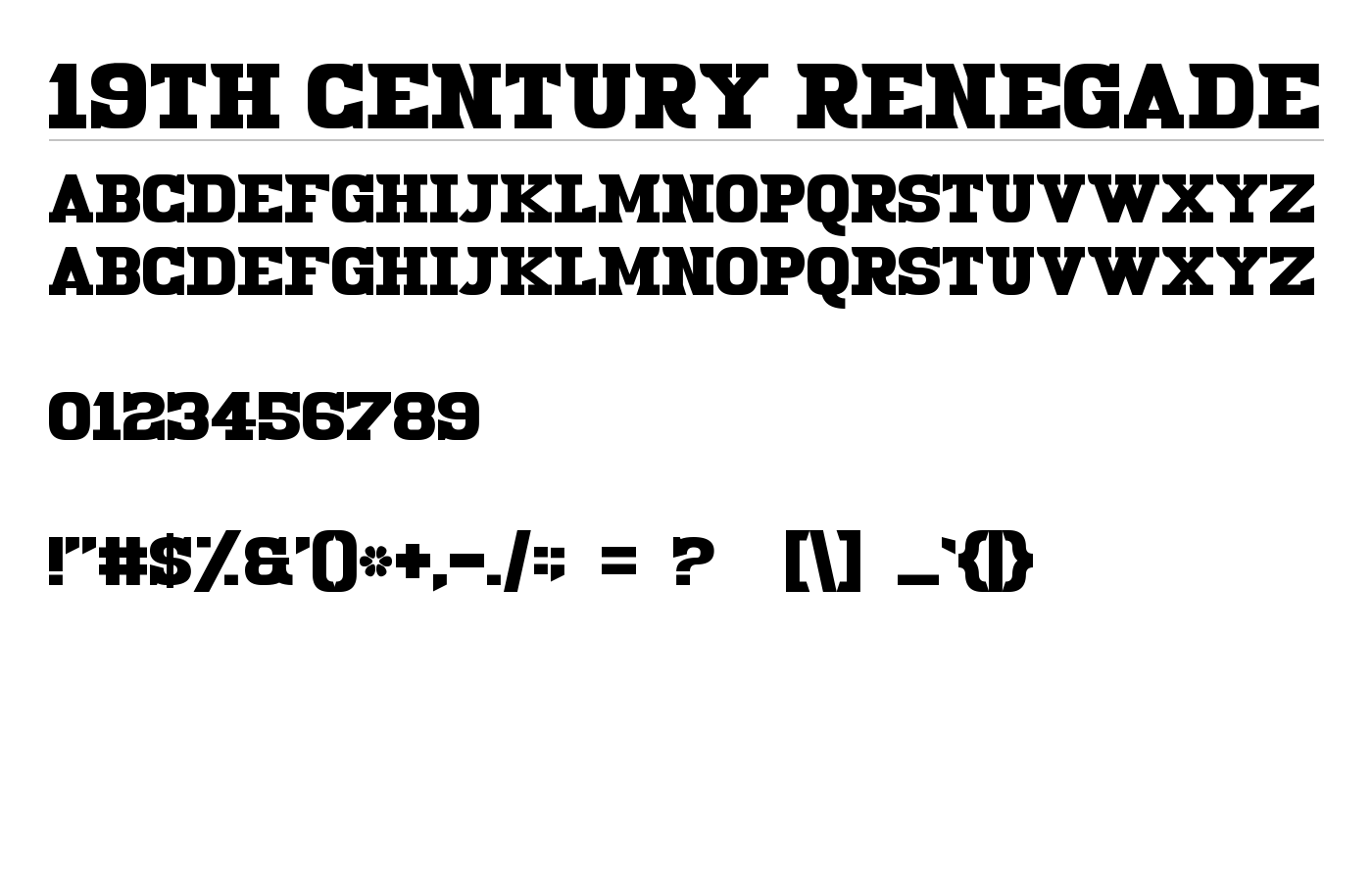
19th Century Renegade is a bold, slab serif font with strong, blocky letterforms that evoke a vintage, western feel. Its thick strokes and prominent serifs give it a sturdy, rugged personality, making it ideal for eye-catching headlines, signage, and branding with a classic or adventurous tone. This font works best when you want to convey strength and heritage with a touch of rugged charm.
19th Century Renegade Font